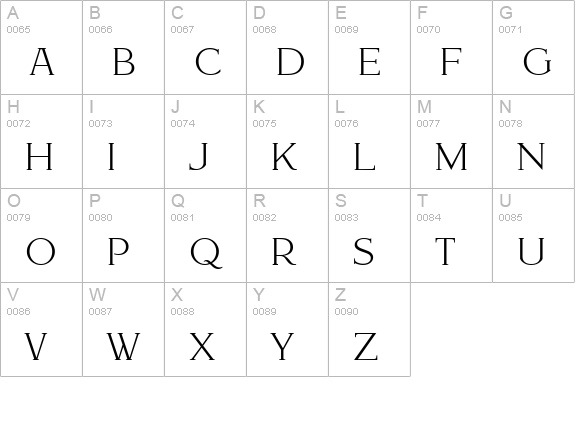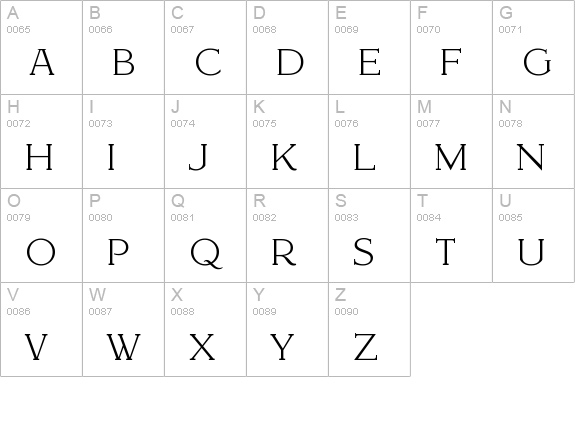
SchillerAntiquaLight Font Details
SchillerAntiquaLight font is a stunning typeface that effortlessly combines elegance with a touch of vintage charm. With its delicate letterforms and graceful curves, this font exudes a sense of sophistication and refinement that is perfect for any design project. The light weight of SchillerAntiquaLight font adds an airy and ethereal quality to any text, making it ideal for use in titles, headings, and body copy. Its timeless appeal makes it suitable for a wide range of applications, including branding, packaging, editorial design, and more. But what makes SchillerAntiquaLight font truly special is that it is free. Yes, you read that right! This exceptional font is freely available to download at FontsMarket.com. Now you can enjoy the beauty and versatility of SchillerAntiquaLight font without having to break the bank. Whether you are a professional designer looking to add a touch of elegance to your projects or a casual user in need of a stylish font for personal use, SchillerAntiquaLight font is the perfect choice. Its impeccable design and free availability make it a must-have in your font collection. So why wait? Head over to FontsMarket.com now and download SchillerAntiquaLight font for free. Experience the beauty and versatility of this remarkable typeface and elevate your designs to new heights.